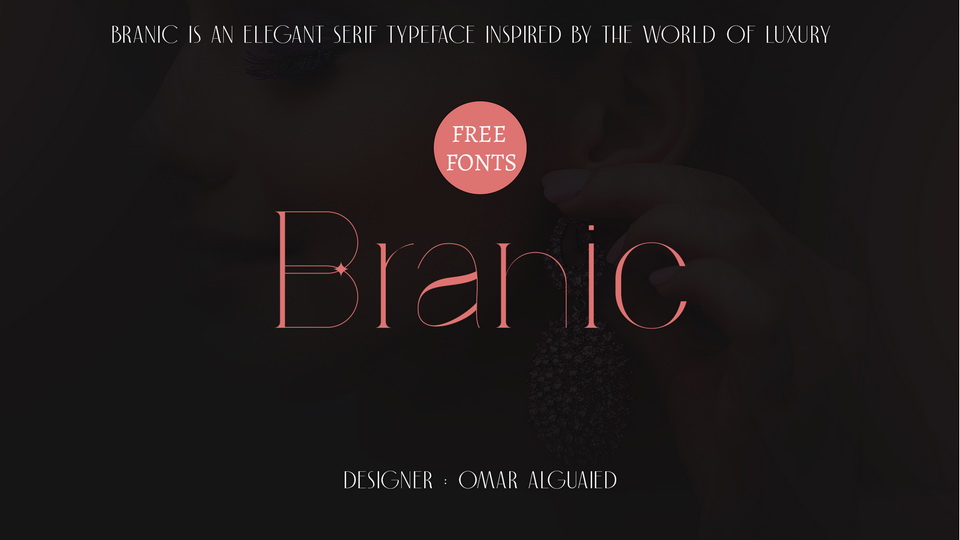
Branic Font
Branic is an elegant serif typeface inspired by the world of luxury. The font is ideal for branding, magazines and editorial use.
Designed by: Omar Alguayyaid